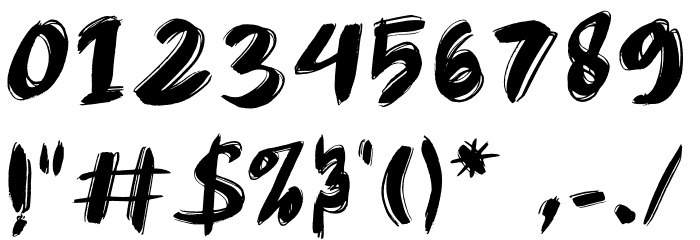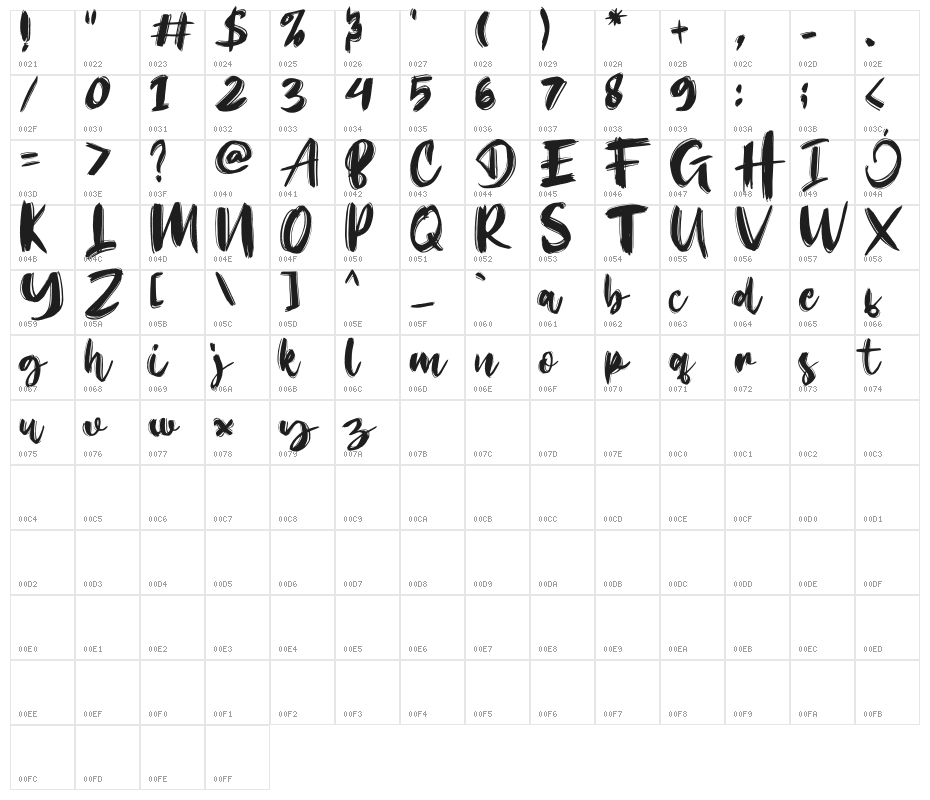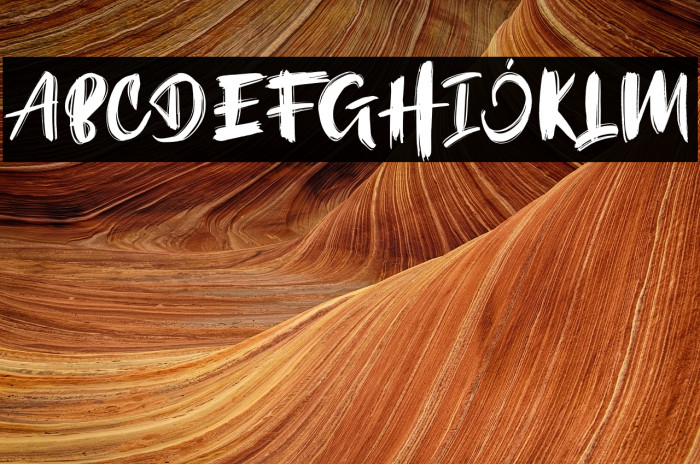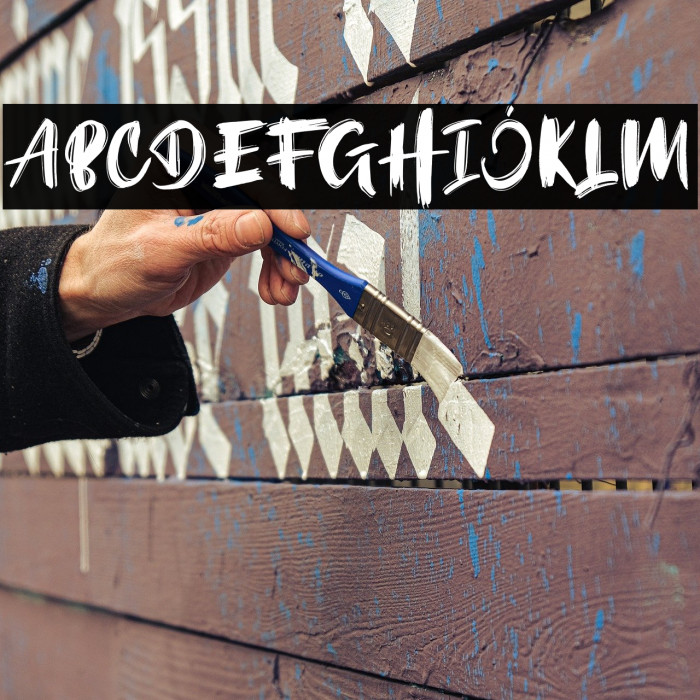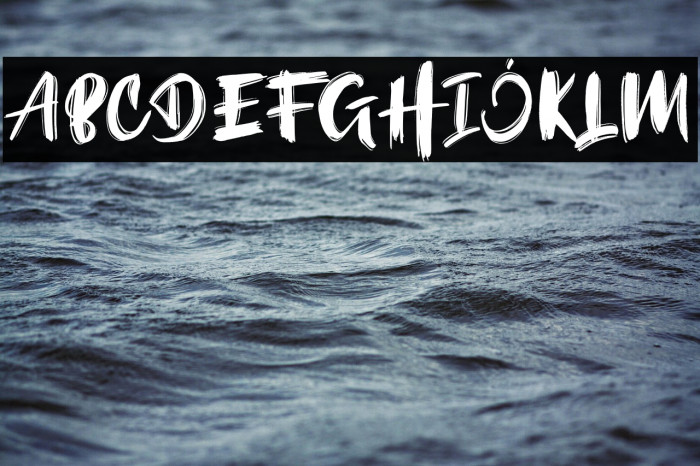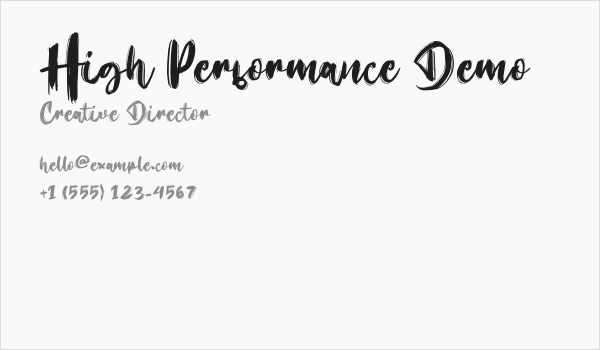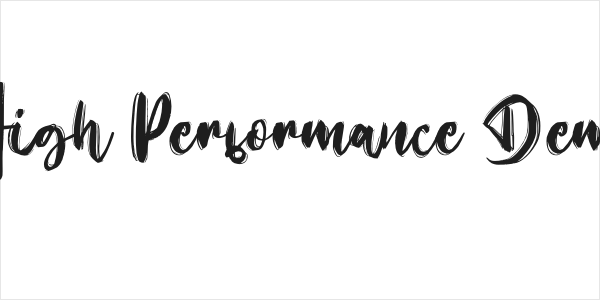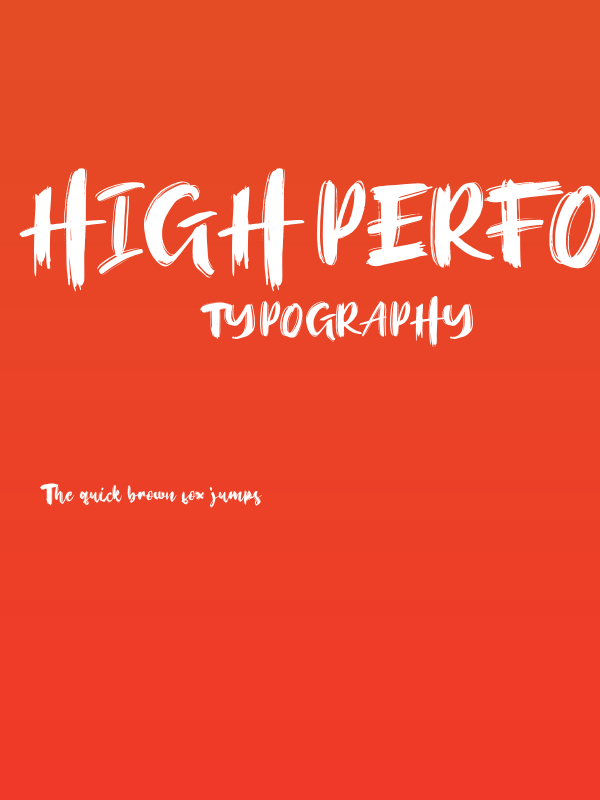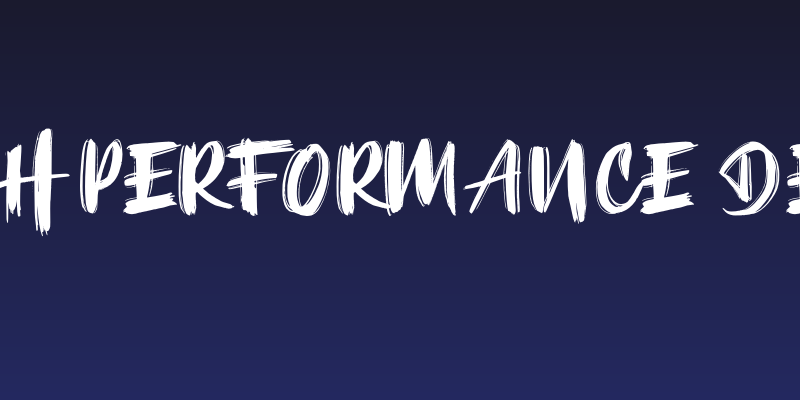
High Performance Demo Font
This font features a bold and expressive brush script style, characterized by its dynamic and energetic strokes. The letters are crafted with a sense of movement and fluidity, giving it a hand-painted appearance. The uppercase letters are bold and prominent, while the lowercase letters maintain a consistent flow, enhancing readability. The numbers and special characters follow the same artistic style, making them visually cohesive with the alphabet. The overall design is modern and artistic, suitable for projects that require a personal and creative touch.
| Proposed Projects | Ideal for branding, posters, invitations, and artistic projects that require a personal and creative flair. |